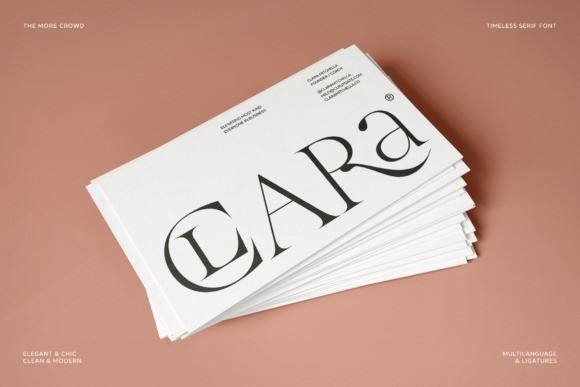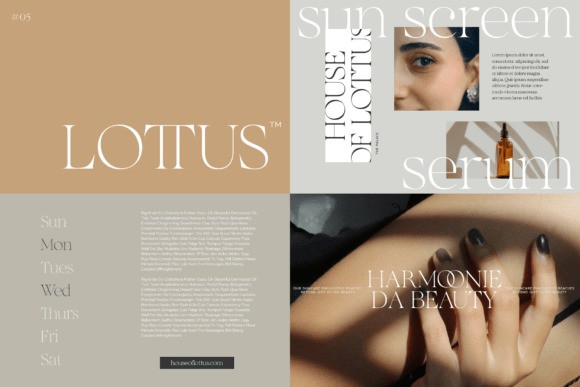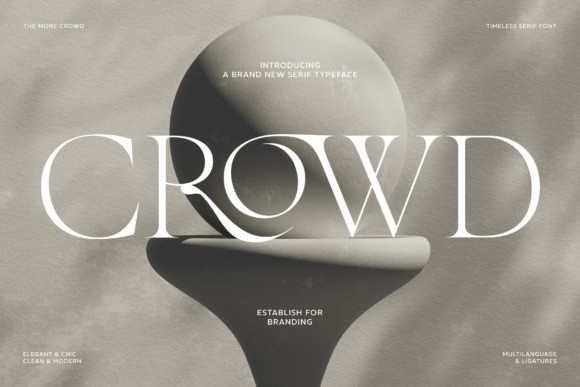
Crowd Font
More Crowd Font, a serif typeface that skillfully combines the elegance of classic design with the freshness of modern aesthetics. Its striking contrast and smooth curves create a visual impact that elevates any creative endeavor. Whether you are designing an elegant magazine publication, building a distinct brand identity, or crafting an engaging website, More Crowd brings a sophisticated and versatile class that will make your work shine.